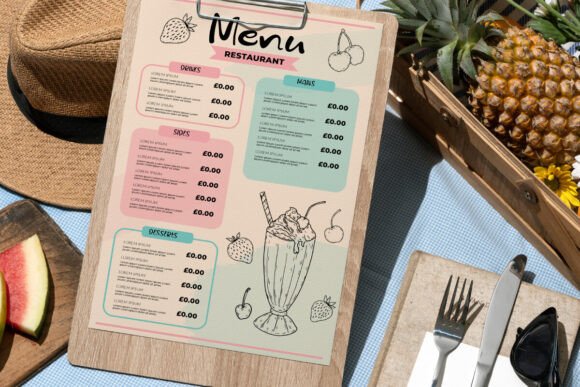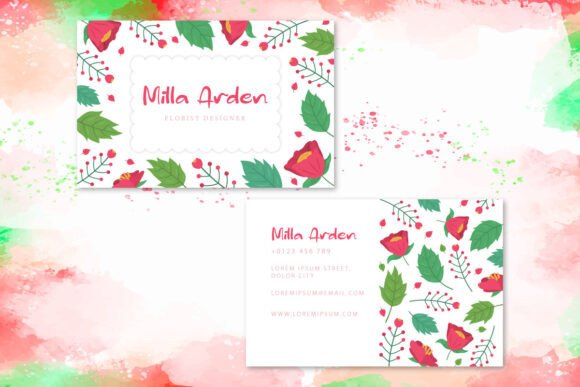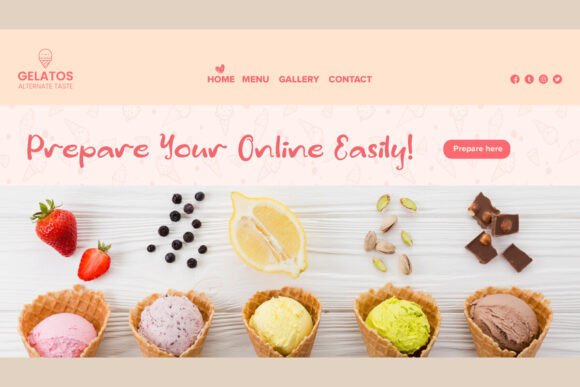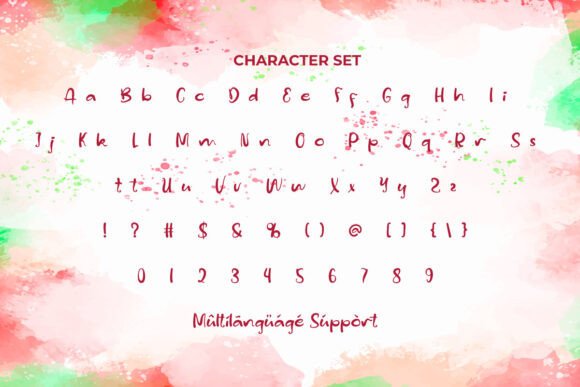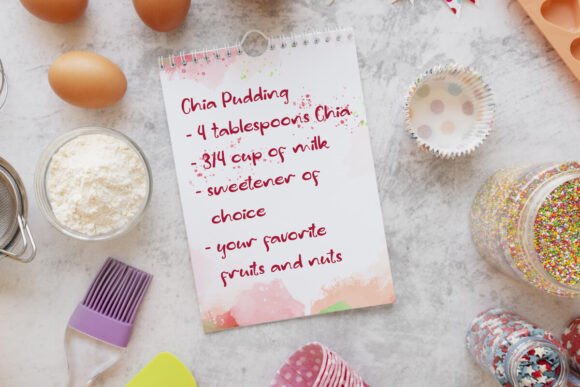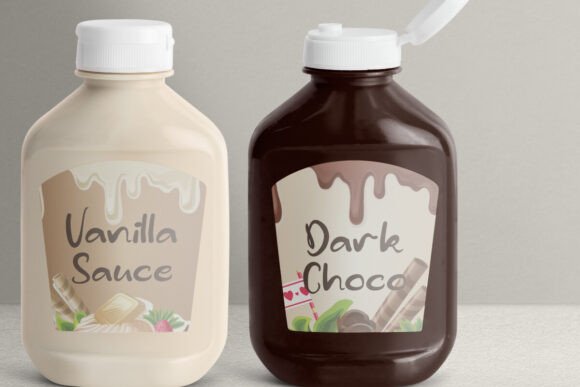
The Sweet Spot for Designers: Introducing Berry Sunrise Font
As a designer, there’s nothing quite like the thrill of discovering a new font that sparks creativity and brings a project to life. For me, it’s like stumbling upon a hidden treasure trove of inspiration – a moment that sets the wheels turning and ideas flowing. And that’s exactly what happened when I first laid eyes on the Berry Sunrise Font.
This playful curly handwritten font is a breath of fresh air, infusing any design with a unique and whimsical touch. Its purpose is to evoke the sweetness and charm of a freshly picked berry, perfect for adding a pop of personality to your work. Whether you’re creating advertisements, branding materials, or packaging for a bakery, the Berry Sunrise Font is sure to be a valuable addition to your design toolkit.
Berry Sunrise Font Key Features
- Unique Characteristics: Berry Sunrise Font features a unique blend of modern and vintage elements, with intricate details and subtle texture, making it perfect for creative and artistic designs.
Berry Sunrise Font Review
As a designer, I was initially drawn to Berry Sunrise Font due to its vibrant and playful aesthetic. ✨ The font’s unique combination of rounded edges and bold lines creates a visually appealing effect that is perfect for capturing a youthful and energetic vibe.
Some of the features that work well in this font include:
- High contrast between light and dark colors, making it easy to read
- Extensive character set, including various punctuation and special characters
However, I did encounter some limitations with Berry Sunrise Font:
- ⚠️ Limited font sizes and styles available, which can make it difficult to customize
- ⚠️ Some characters may not render correctly in certain fonts or environments
- ⚠️ Font may not be suitable for formal or professional applications due to its playful and youthful aesthetic
Overall, Berry Sunrise Font is a great choice for designers looking to add a touch of whimsy and fun to their projects. While it may have some limitations, its unique aesthetic and versatility make it a valuable addition to any designer’s toolkit.
Experiment with different font sizes, colors, and combinations to achieve unique visual effects.
Use the Berry Sunrise Font to create eye-catching headings, titles, and subheadings.
Pair the font with other fonts to create a harmonious typography.